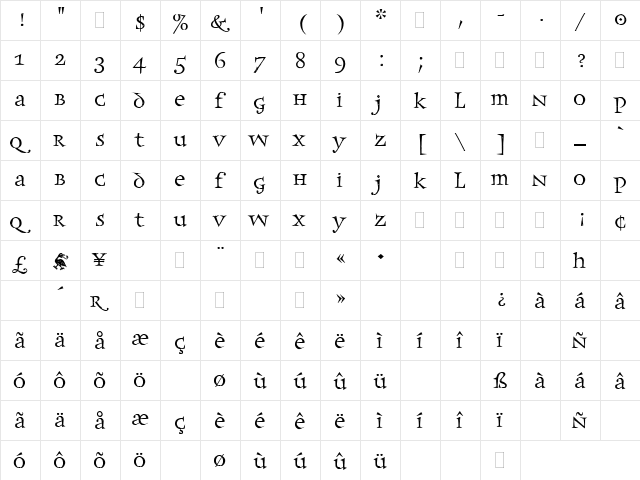
Frances Uncial
| Style | Uncial |
Design Context for Frances Typeface
Frances is a composed and adaptable typeface that performs quietly and consistently across a wide range of design contexts.